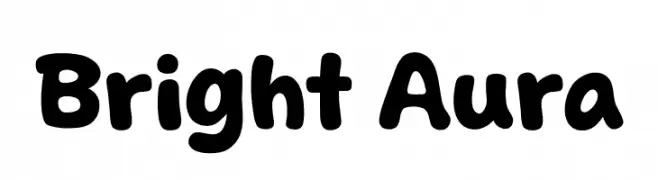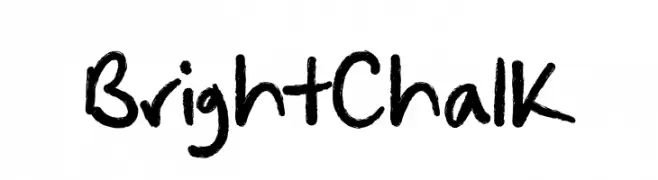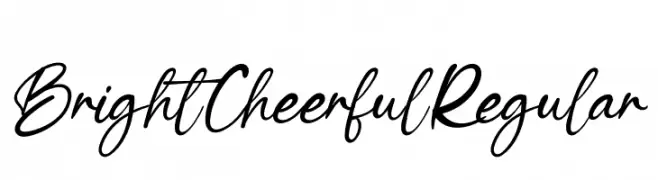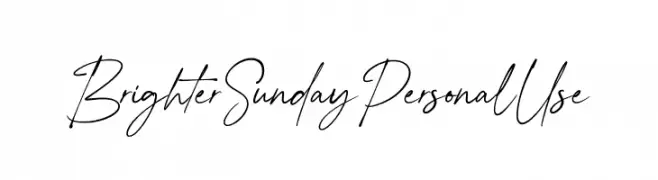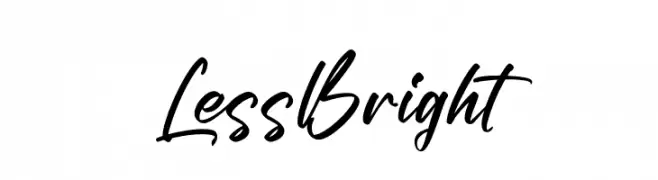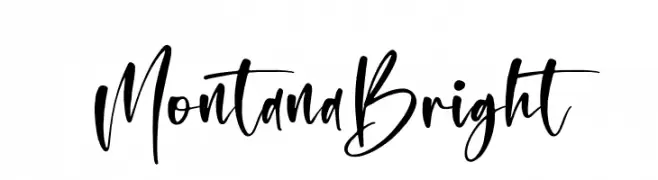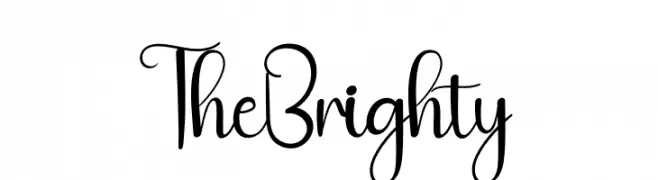
• BrightCheerfulRegular
A lively, cursive font with smooth, flowing strokes and elegant connections.
• Bright Aura
A playful, bold font with rounded, bubbly characters.
• Less Bright
A dynamic and fluid script font with elegant, flowing letterforms.
• Bright Chalk
A playful, hand-drawn font with a chalk-like texture.
• The Brighty
A playful, whimsical script font with flowing, cursive letters.
• Brigers
A tall, condensed font with a modern and sleek appearance.
• Bright Moment
A bold, handwritten font with a playful and energetic style.
• Brighter Sunday Personal Use
A flowing, elegant handwritten script with a personal touch.
• Montana Bright
A dynamic and flowing script font with elegant, expressive letterforms.
• BrightTopicDemo
A bold, handwritten font with a playful and energetic style.